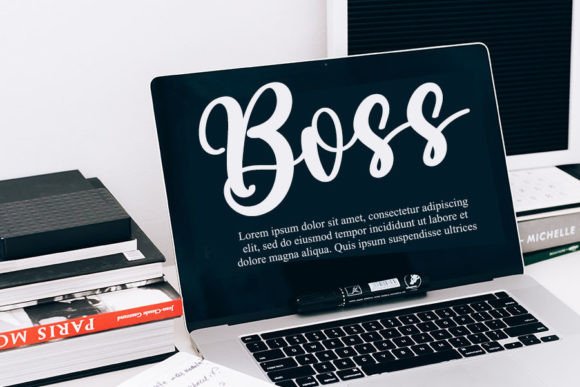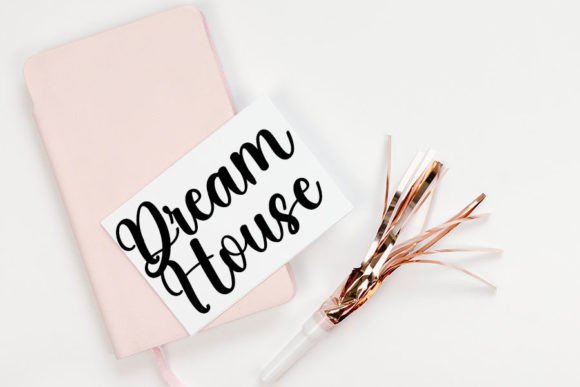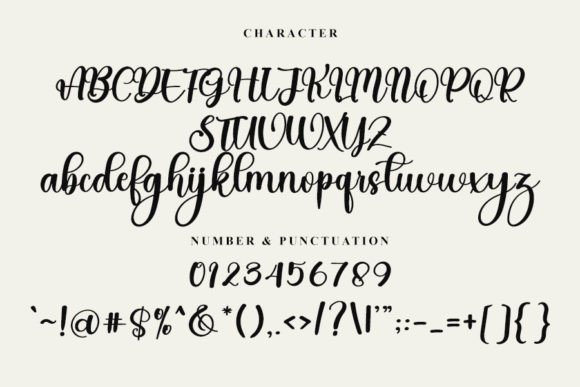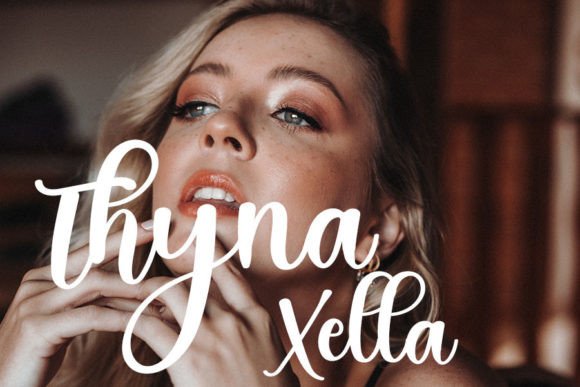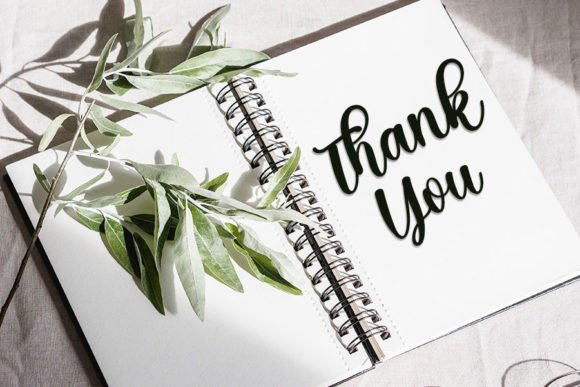
Vantastic Font
Handwritten Font Vantastic – Elegant & Trendy Typeface
Vantastic is a sleek and handwritten font that brings together timeless elegance and modern sophistication. Inspired by traditional calligraphy, this stylish typeface is ideal for any project that calls for grace and refinement.
Its handcrafted design makes it perfect for adding a personal yet polished feel to your work.
Where to Use the Vantastic HandwrittenFont
Vantastic is versatile and suitable for many creative uses. Whether you’re designing for business, celebrations, or digital branding, this handwrittenfont will elevate your visuals.
You can use it for:
• ✨ Elegant wedding invitations
• 🖋️ Branding and logo design
• 🛍️ Product packaging
• 📢 Social media graphics
• 💌 Greeting cards and thank you notes
• 📚 Book titles or magazine covers
Why Choose Vantastic?
Designers love Vantastic for its clean curves and sophisticated flow. It offers a perfect balance between classic charm and a modern aesthetic, making it a go-to choice for projects that demand style and clarity.